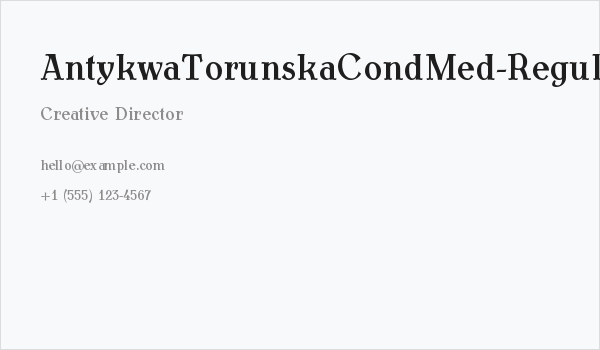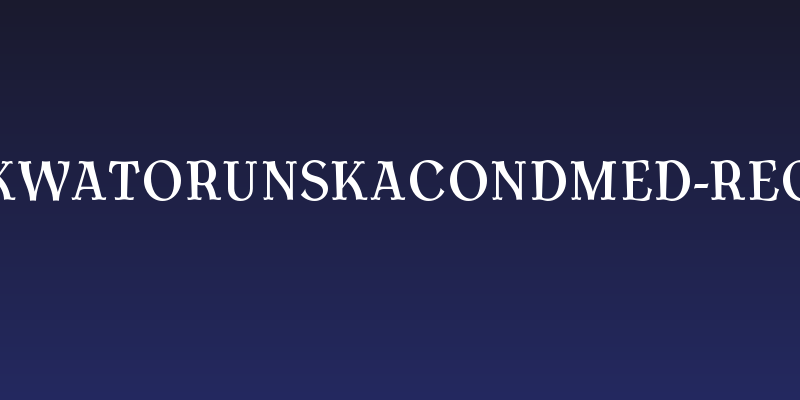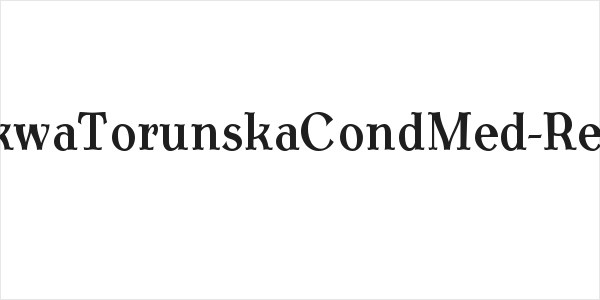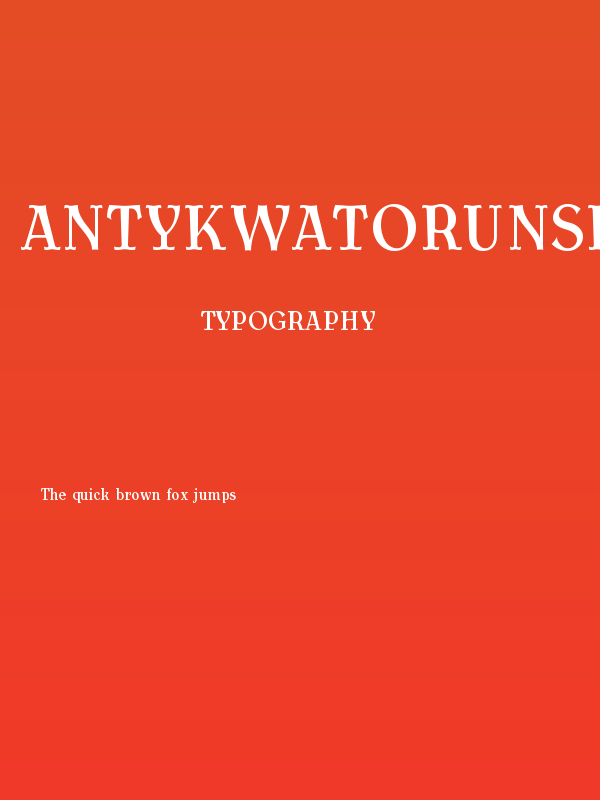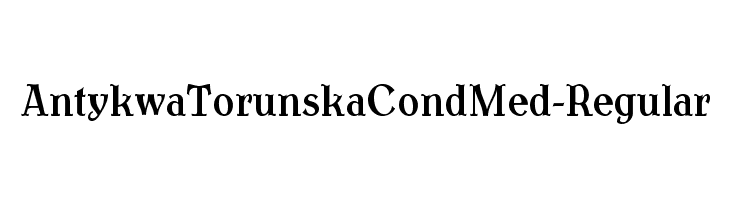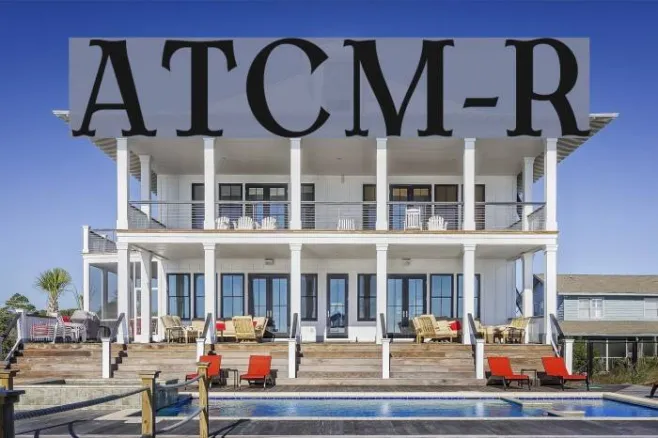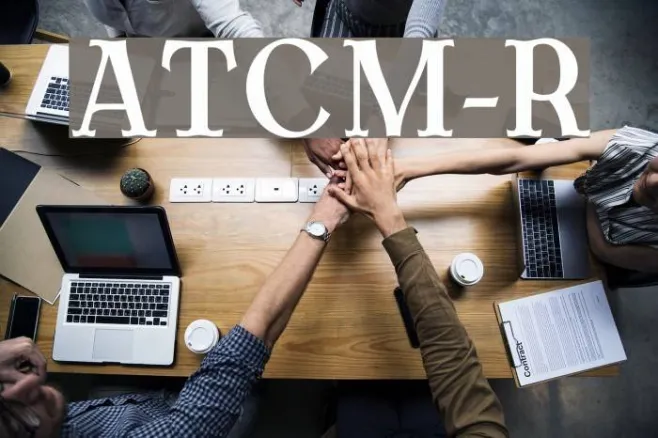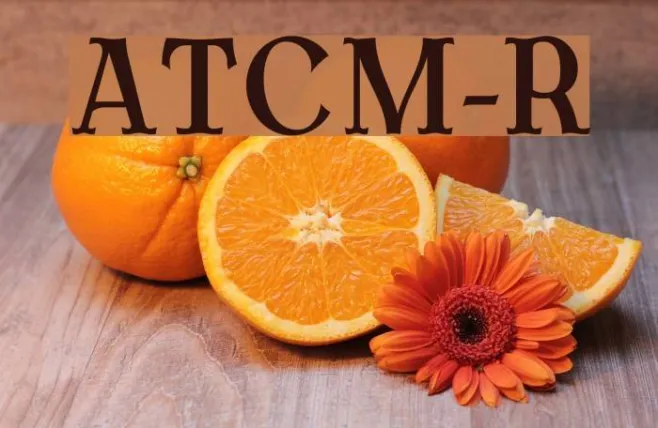
AntykwaTorunskaCondMed-Regular Font
AntykwaTorunskaCondMed-Regular Description
This font features a classic serif style with a condensed structure, offering a traditional yet elegant appearance. The serifs are pronounced, providing a sense of formality and sophistication. The uppercase letters are bold and commanding, while the lowercase letters maintain a consistent and harmonious flow. The numerals are clear and distinct, ensuring readability. Special characters are well-defined, adding versatility to the font. Overall, this typeface exudes a timeless quality, making it suitable for a variety of formal and professional applications.
| Width | Condensed |
| Overall Style | Classic |
| Use Case | Headlines, Body text, Logos |
| Proposed Projects | Ideal for book covers, formal invitations, certificates, and editorial design. |